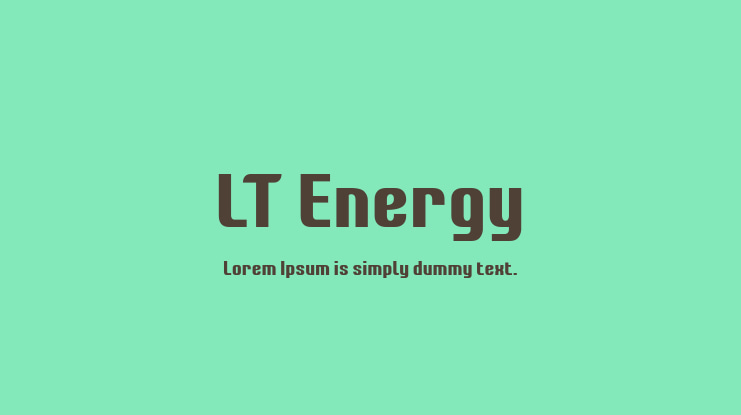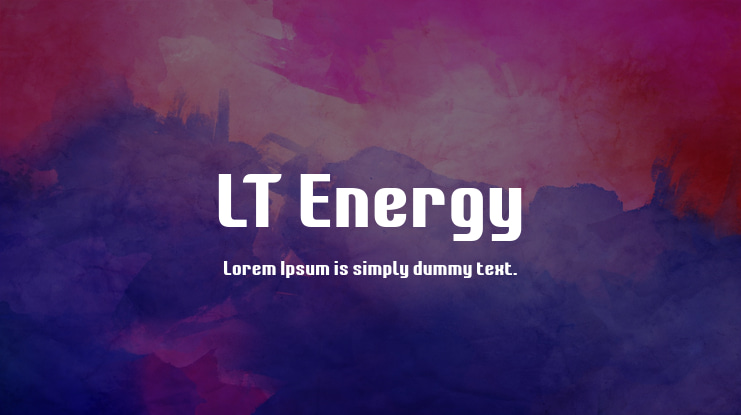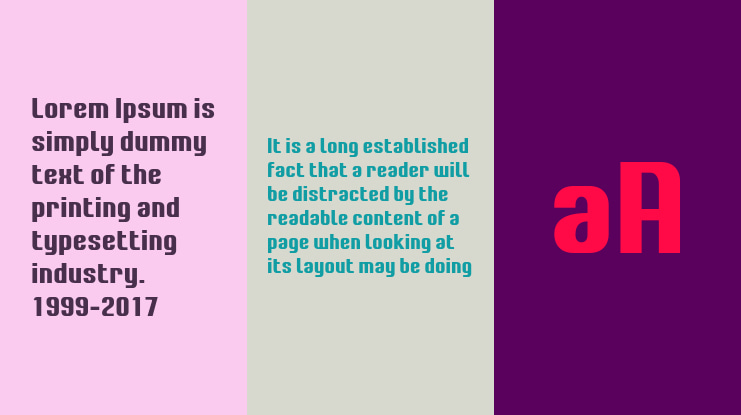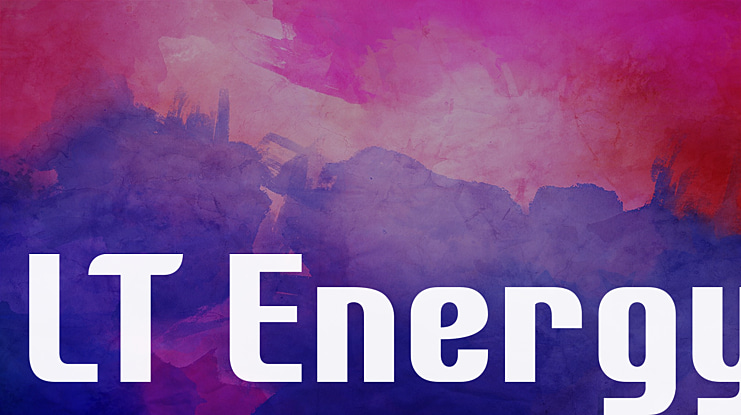
LT Energy Font Family
Introducing "Energy" from LyonsType. It is a blocky font that has the same structure as the early Lucozade font seen in various websites and elements of its wise. Not only it is derived from the original Lucozade logotype from the early 2000s, but it's also carefully and efficiently redesigned to have the original structure come off as improved - even to include some language support. The font comes in two styles, including a customizable version which can be specifically used in software and websites that support variable fonts. It has suitable energy and a healthy hydration theme - so with this font, your energetic typing hands can get you anywhere. Please enjoy.